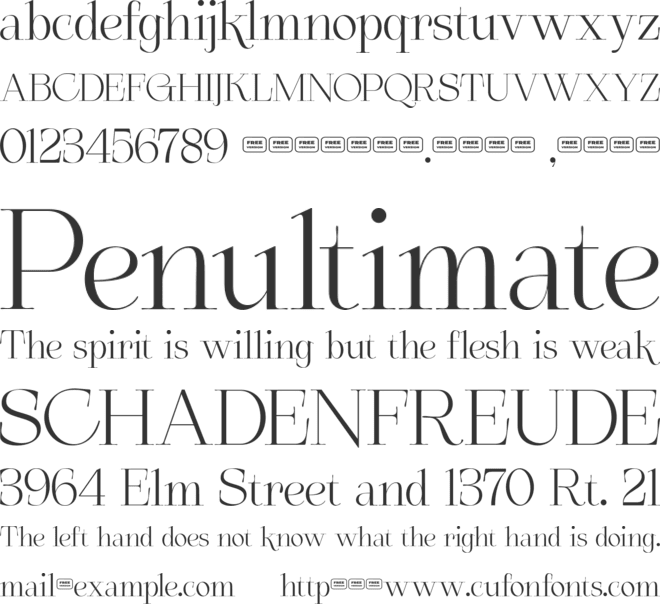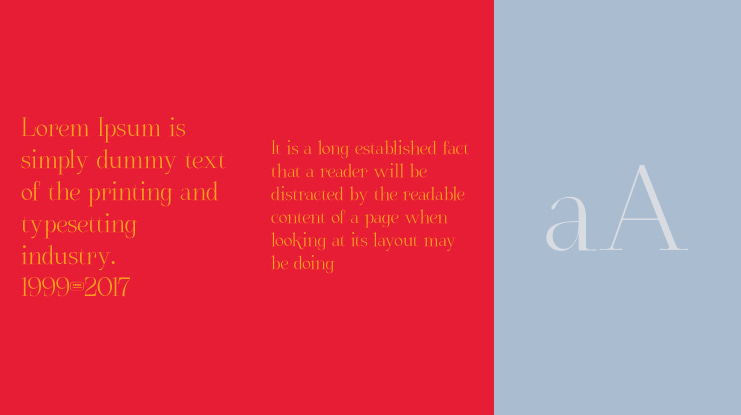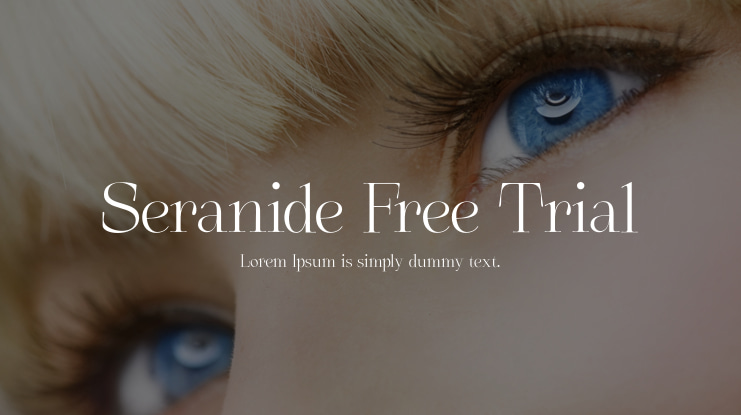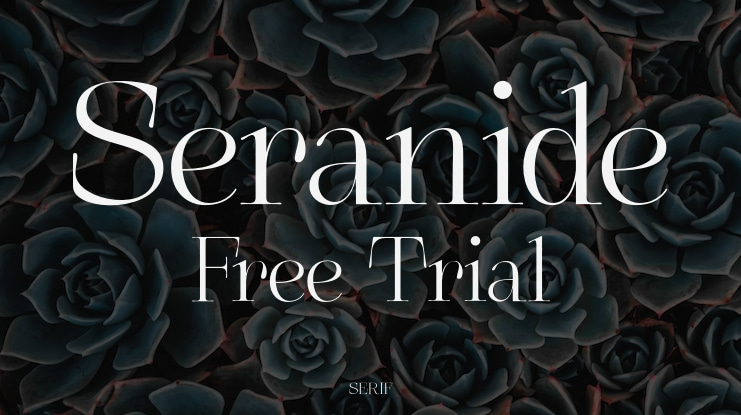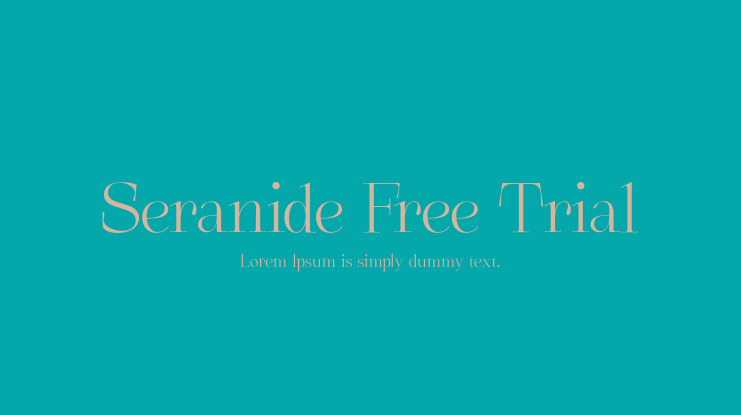
Seranide Free Trial Font
Experience timeless elegance with "Seranide" - an exquisite serif typeface that adds a touch of sophistication to your designs!
With its refined and graceful letterforms, "Seranide" exudes classic beauty and charm. Each character is meticulously crafted to achieve a perfect balance of elegance and readability, making it ideal for luxurious branding, editorial layouts, wedding invitations, and more.
Embrace the versatility of "Seranide" as it effortlessly enhances your designs. Whether you're creating refined logos, captivating book covers, prestigious certificates, or elegant stationery, this typeface will captivate your audience with its elegant and timeless style.
Step into a world of refined typography with "Seranide" and let your designs speak with enduring elegance!